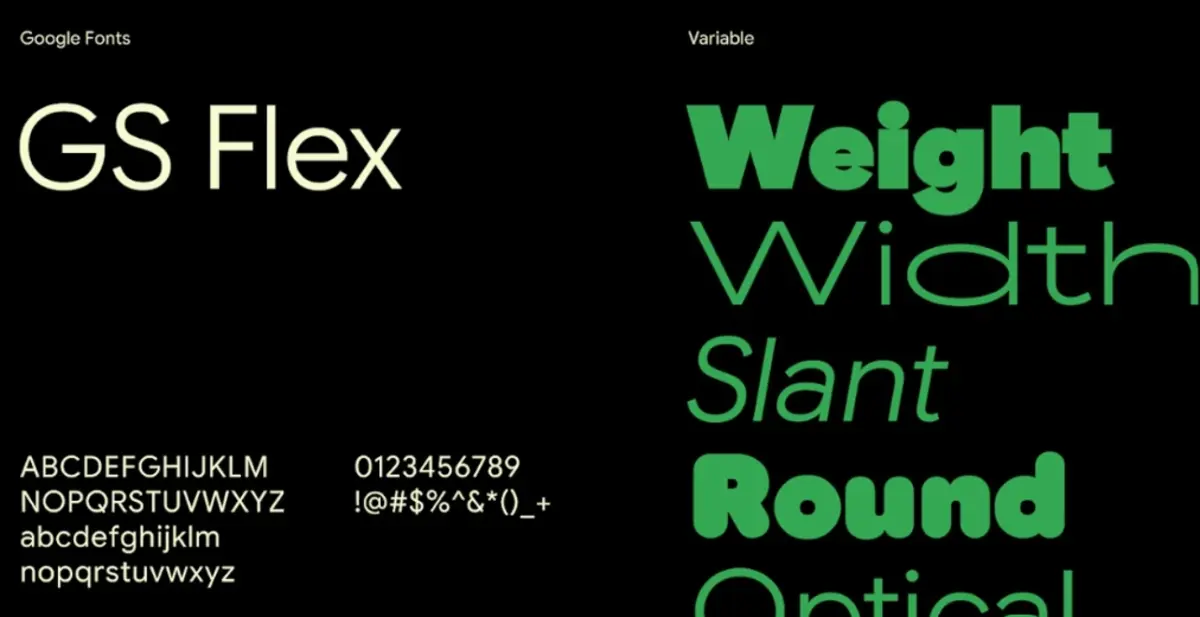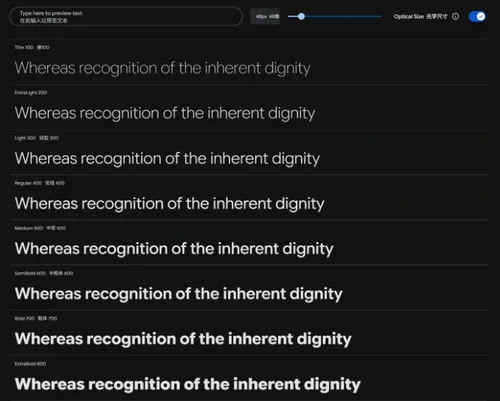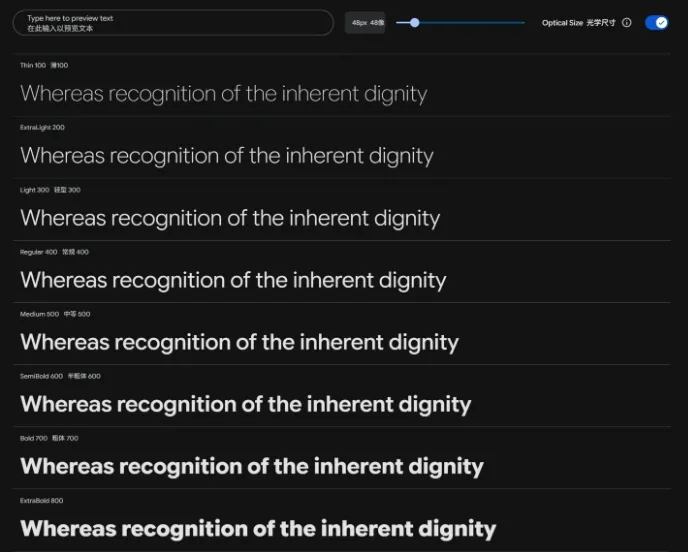
Google has opened up its Google Sans
Flex font. The company made it free for anyone to download. The announcement came a few days ago. It is already getting attention from designers and developers.
A lot of people have always wanted easier access to the typeface that shapes so much of Google’s
visual identity. With this release, the font isn't just free to view. It is also free to use, even in commercial products.
Open and Easy to Use
Google says all fonts on the Google
Fonts platform are already open-source. However, this release feels a bit bigger.
Google Sans has been a core part of the company’s branding for years. Now, the Flex version is available with no fees.
There is also no need for a special license, and no fine
print waiting to surprise you later. If you want to use it in an app, a
website, a logo, or even a product you plan to sell, you can. Google wants the
barrier to entry to be basically zero, and this release shows that.
A Font You Can Shape to Fit Your Style
What makes Google Sans Flex stand
out is how adjustable it is. The Google Sans
Flex family includes nine different styles, covering weights from Thin 100 to
Black 900.
You also have the option to alter
certain features like stroke width, optical size, or how rounded the corners
feel. It still carries that clean, friendly look Google is known for, but it
also gives you room to shape it into something that fits your own style.
San Flex is said to feature fonts in different languages,
which include English, a wide range of Latin-based languages, French, German,
and several others. One thing worth mentioning is that this release still
doesn’t include Chinese characters, so for now it mainly works for projects
that use Latin-based languages.
Why It Matters
For designers, this release is a small but meaningful gift.
Google is essentially sharing a piece of its design system with the rest of the
world. This software isn’t the restricted version, but an open-source tool for
you can explore and reshape.
It doesn’t matter if you’re designing a brand,
refining an app, or simply experimenting with type, Google Sans Flex offers a
polished yet personal tool. And the fact that it’s truly free
makes it even easier to adopt.